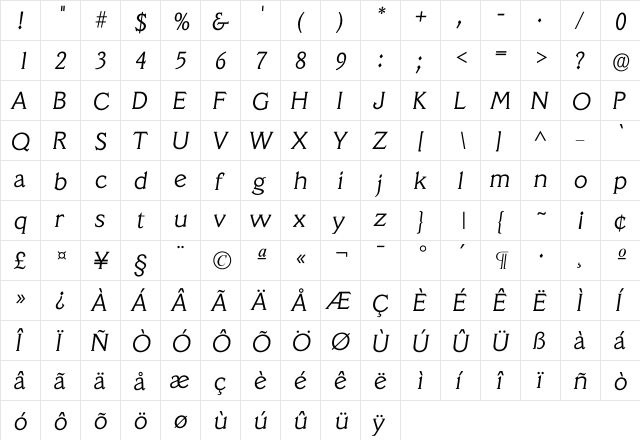
Iveracruz Light
Design Context for Iveracruz Typeface
Iveracruz is a composed and adaptable typeface that performs quietly and consistently across a wide range of design contexts. The delicate stroke weight brings airiness and refinement to layouts.